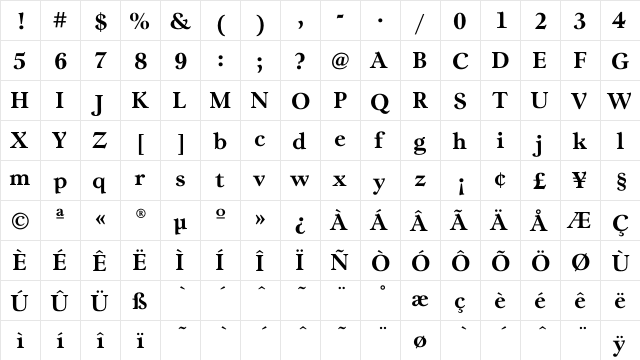
LombaBold Regular
Design Context for LombaBold Typeface
LombaBold takes a measured approach to typography — its balanced proportions and neutral character make it a reliable workhorse for both digital and print work. The heavy weight commands attention and anchors typographic hierarchies.